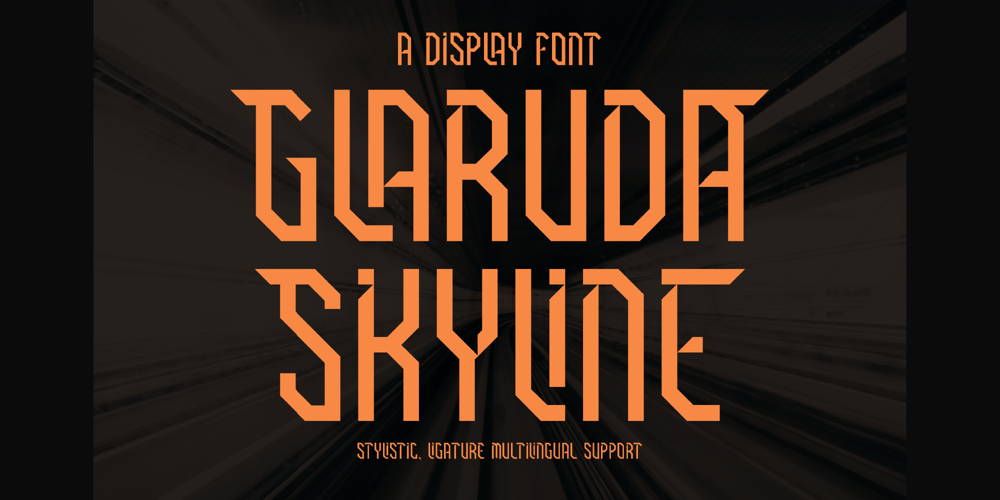
GLARUDA SKYLINE
GLARUDA SKYLINE font
GLARUDA SKYLINE Font Family was designed by Heru Utama Putra and published by Letterena Studios. GLARUDA SKYLINE contains 2 styles and family package options. Glaruda Skyline is a bold and assertive serif font. No matter the topic, this font will be an incredible asset to your fonts’ library, as it has the potential to elevate any creation.